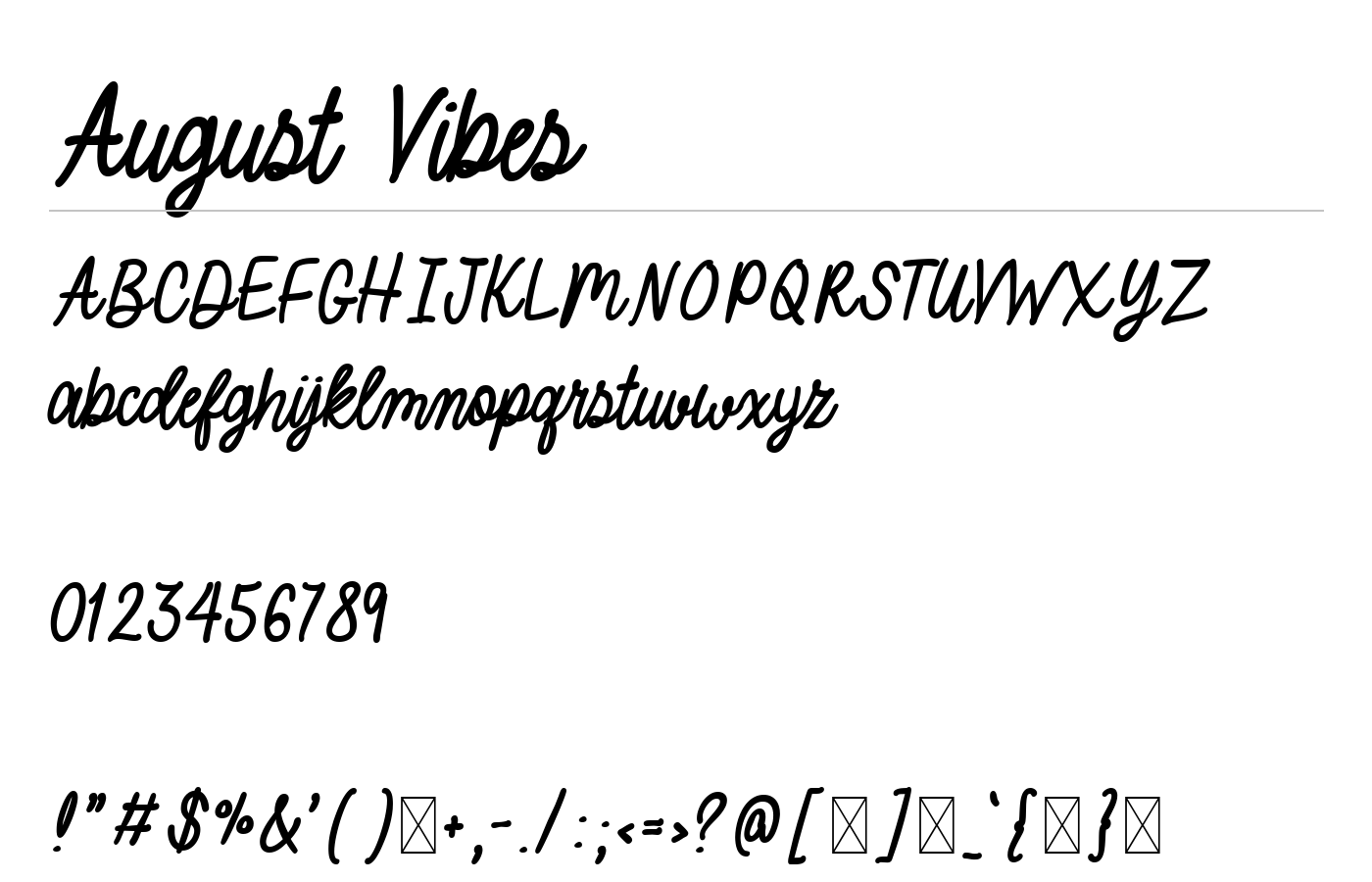
August Vibes is a lively and casual script font with a smooth, handwritten style that evokes a friendly and approachable feel. Its moderate weight and fluid strokes create an inviting, personal touch, making it perfect for branding, social media, and creative projects that want to express warmth and individuality. This font shines in headlines, logos, and packaging where a natural, vibrant vibe is desired.
August Vibes Font
About August Vibes Font
| Font family | August Vibes Font |
| Designer | Misti's Fonts |